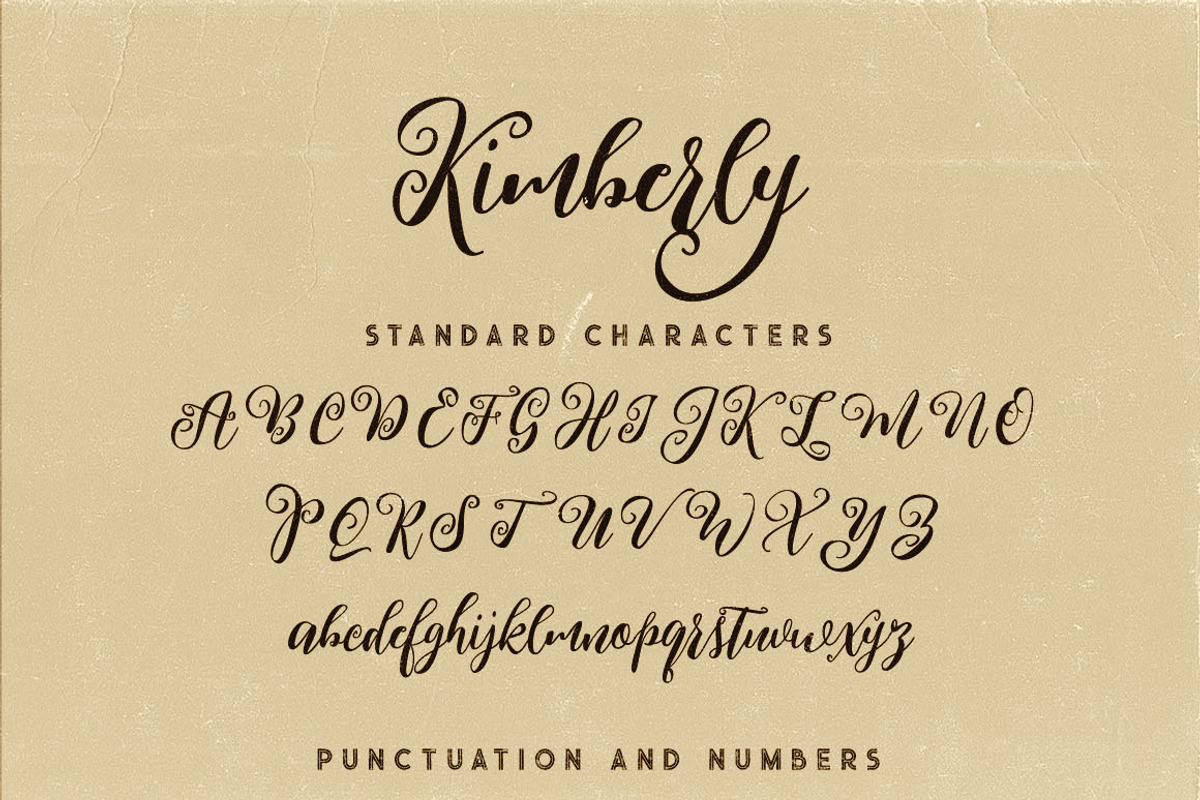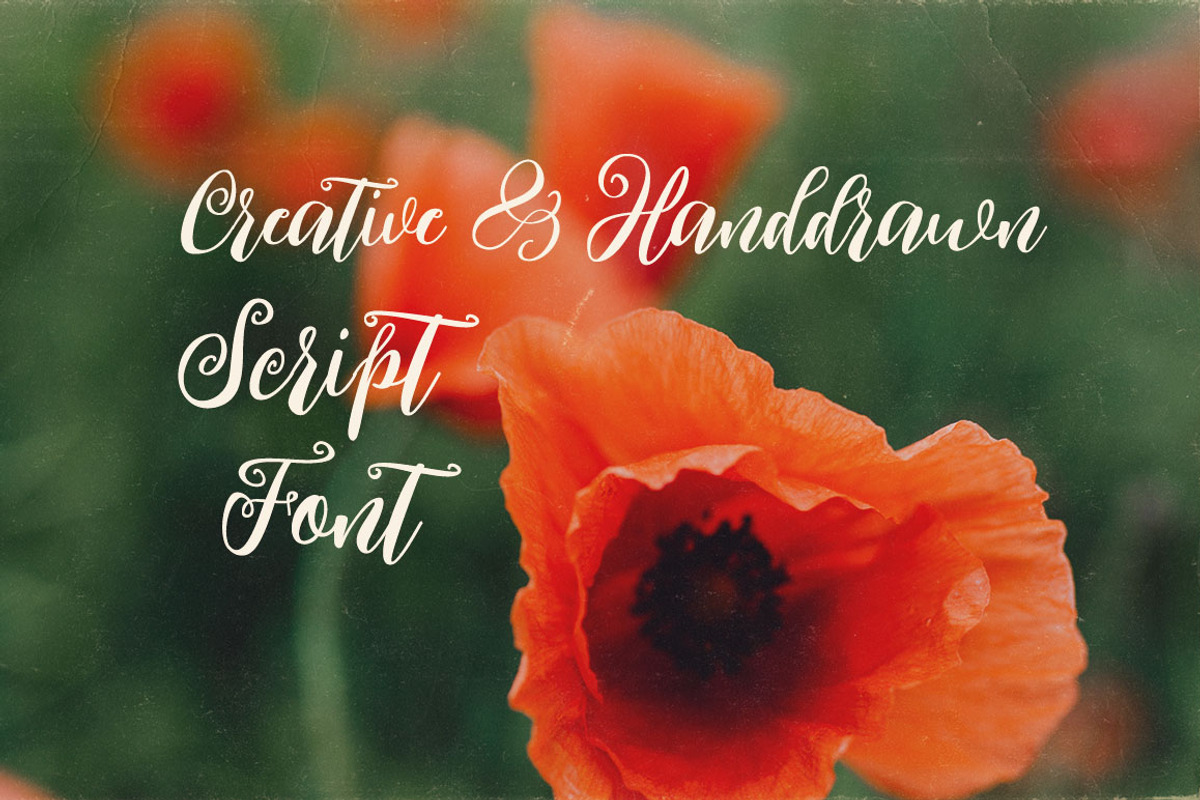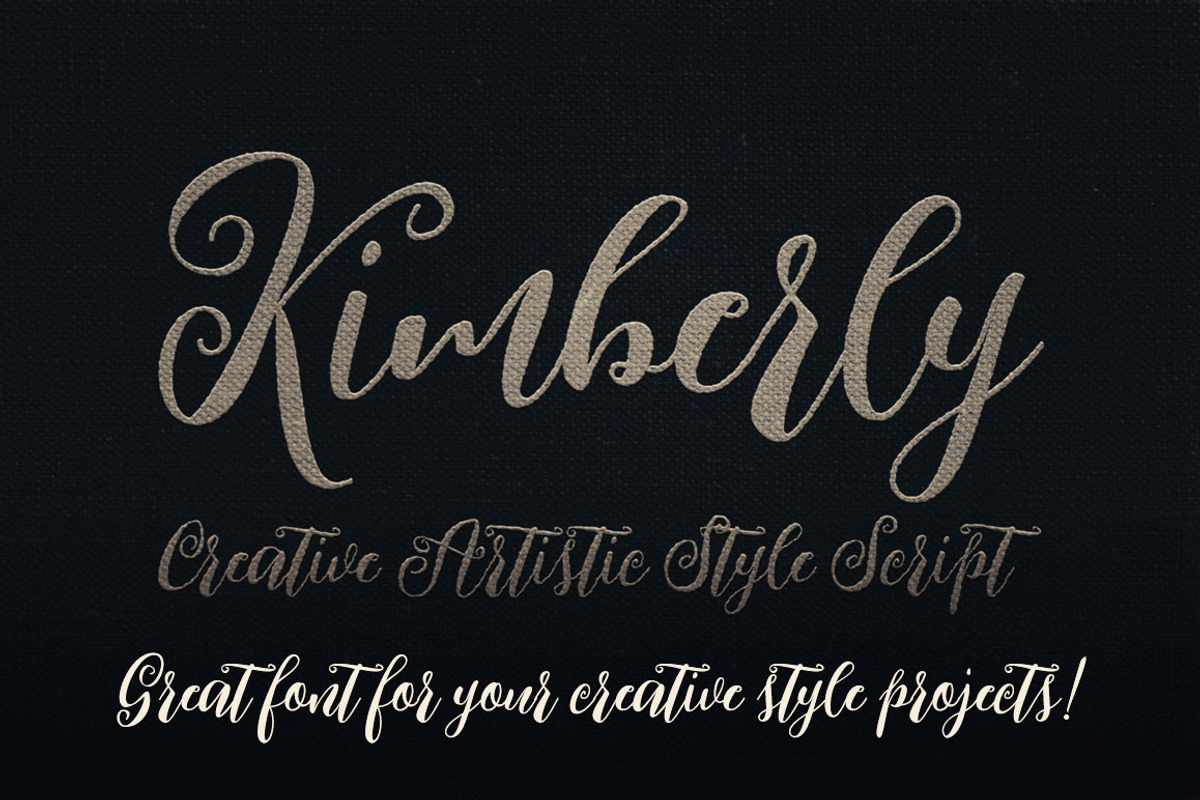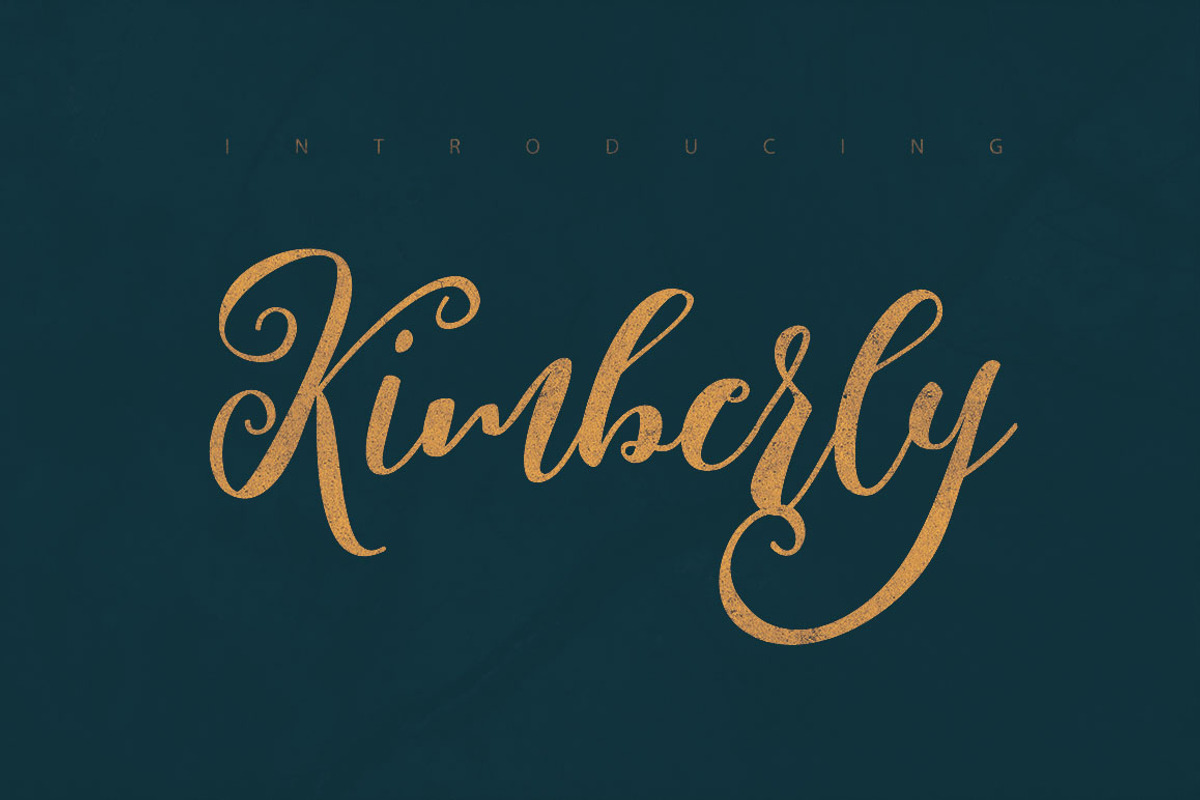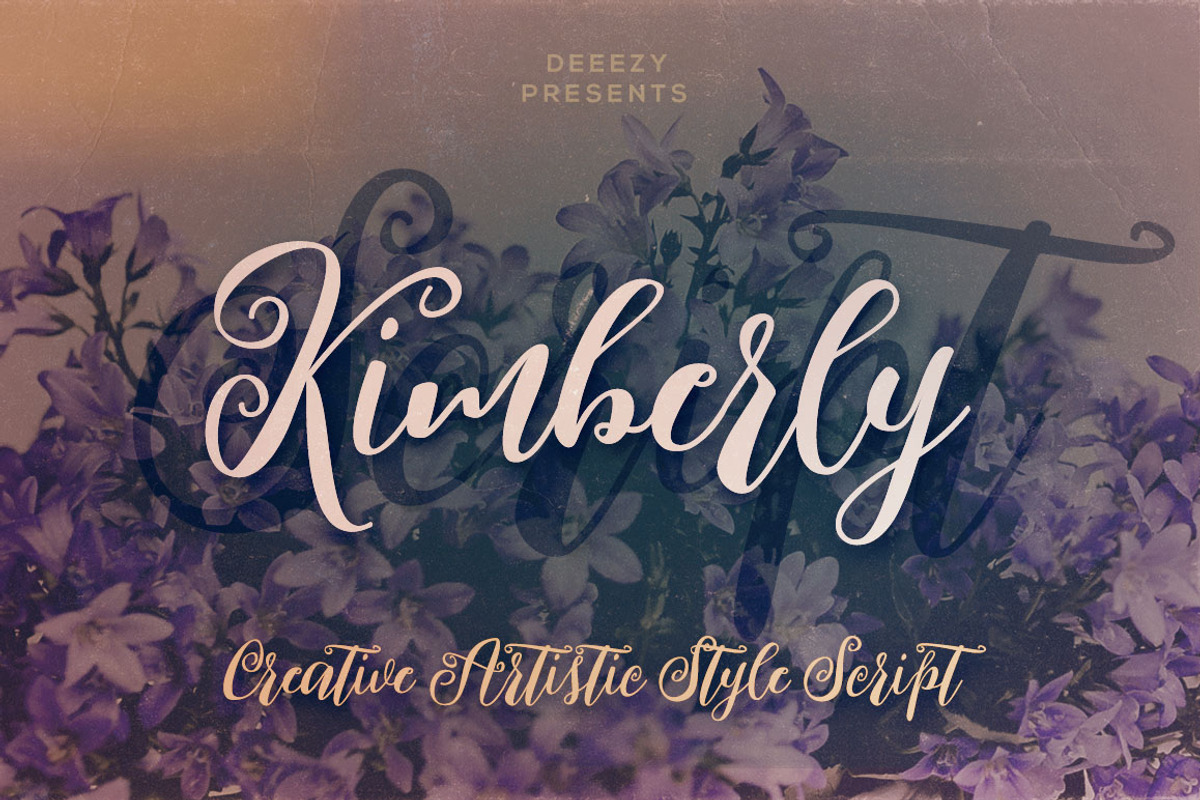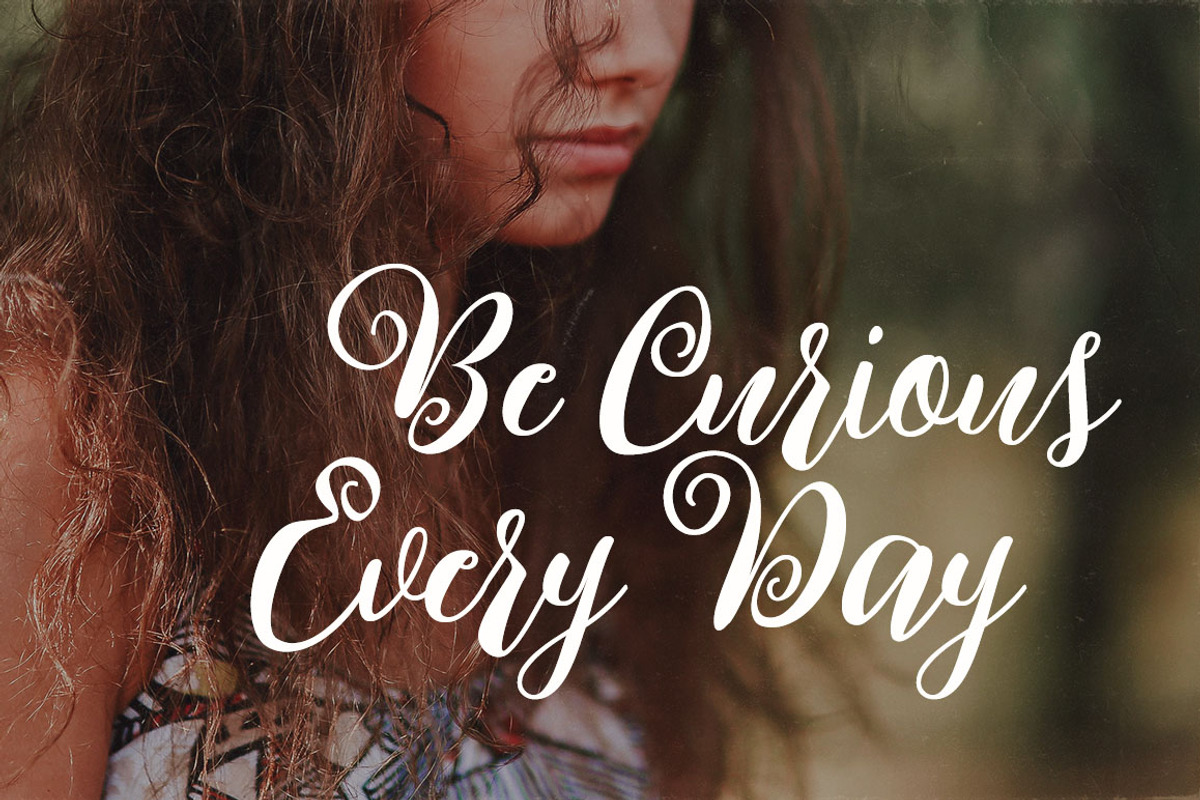
Kimberly Script Font
Bold and handwritten or dancing baseline bold style script font for your new projects. With multi language support and lot of stylistic alternates. Enjoy ;)
- With multi language support and lot of stylistic alternates.
Why Kimberly Script Font is worth a look
Kimberly Script Font by Deeezy fits naturally into Branding, posters, packaging, typography.